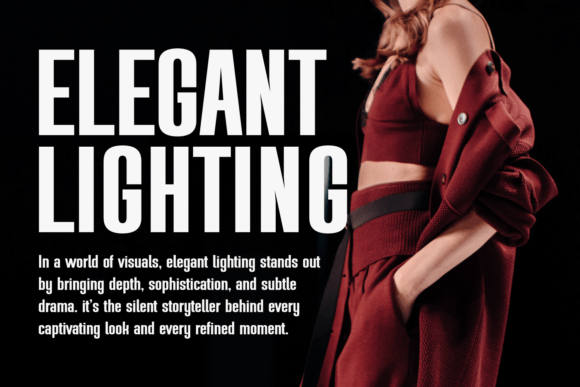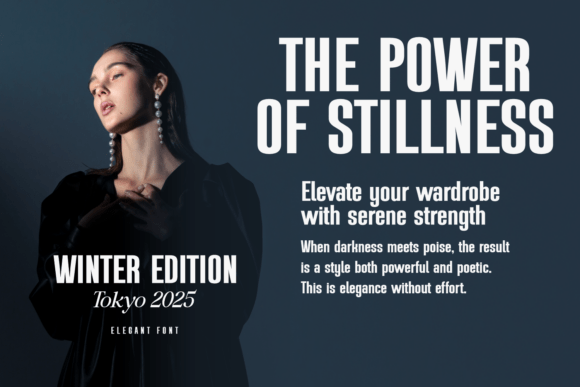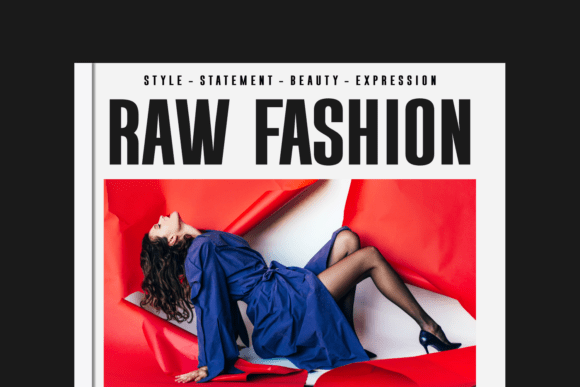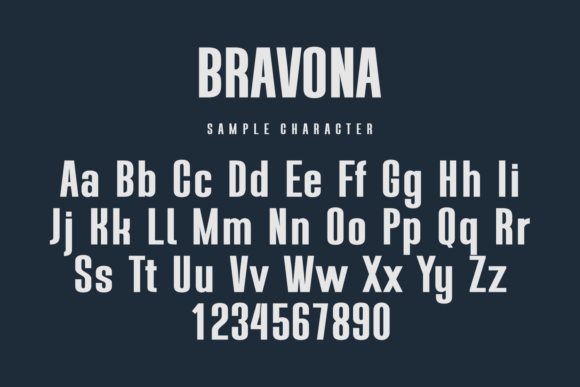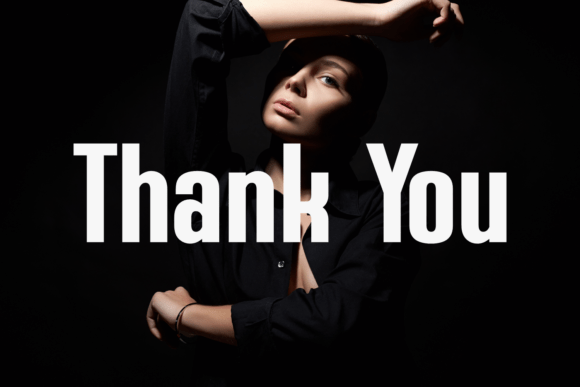
Unlock the Power of Bravona Font: Elevate Your Design with Style
Imagine you’re flipping through a high-end fashion magazine, and a bold headline catches your eye. The words leap off the page, drawing you in with their clean lines, sharp contrast, and unmistakable style. This is the magic of Bravona Font, a modern Sans Serif typeface that’s tailor-made for making a statement.
As a designer, you know that the right font can be the difference between a design that’s merely good and one that’s truly great. Bravona Font is that secret ingredient that can elevate your work from bland to grand. Its strong, high-contrast design makes it perfect for headlines, titles, and any situation where you need to grab attention. Whether you’re working on a fashion campaign, a magazine cover, or a brand identity, Bravona Font is the perfect tool to help you leave a lasting impression.
Bravona Font Key Features
- Font Family: Bravona Font comes in 2 font families: Bravona and Bravona Sans, with 8 styles each.
- Size: Bravona Font has a large character set, with over 700 glyphs, including international characters and symbols.
- Unique Characteristics: Bravona Font features a unique blend of modern and vintage elements, with a distinctive flair for drama and elegance.
- Language Support: Bravona Font supports a wide range of languages, including Latin, Cyrillic, Greek, and many more.
Bravona Font Review
Bravona Font is an interesting take on modern sans-serif fonts. I’ll dive into what works well and where it falls short.
- Unique and modern aesthetic: Bravona Font has a distinct look that sets it apart from other sans-serif fonts.
- Legible in various sizes: I was impressed by how clear the font remains even at smaller sizes.
- Wide language support: Bravona Font supports a wide range of languages, making it a great option for multilingual projects.
- Lack of subtlety: Bravona Font’s unique aesthetic may be too bold for some projects, making it difficult to balance with other design elements.
- Not ideal for body text: While Bravona Font is great for headings and titles, it may not be the best choice for large blocks of body text due to its condensed letterforms.
- Not as versatile as other fonts: Bravona Font’s unique style may limit its use in certain design contexts, such as formal or traditional projects.
Overall, Bravona Font is a solid choice for projects that require a modern and unique aesthetic. However, it’s essential to consider its limitations and balance it with other design elements to achieve the desired effect.
For best results, use the Bravona Font in headings and titles, as it is designed to be bold and eye-catching.
The Bravona Font is ideal for:
1. Headings and titles in designs and presentations.
2. Adding a professional touch to graphics and documents.
3. Creating eye-catching marketing materials.
Alternatives to Bravona Font
Montserrat is a popular sans-serif font that is highly legible and versatile. It is ideal for use in headings and titles, and is particularly well-suited for digital applications. Montserrat has a slightly more geometric feel than Bravona Font, with a stronger emphasis on clean lines and simplicity.
Lato is a modern sans-serif font that is designed to be highly readable and adaptable. It is a good choice for use in body text, as well as in headings and titles. Lato has a slightly more rounded feel than Bravona Font, with a softer and more approachable aesthetic.
Open Sans is a highly legible and versatile sans-serif font that is designed for use in digital applications. It is a good choice for use in body text, as well as in headings and titles. Open Sans has a slightly more neutral feel than Bravona Font, with a clean and minimalist aesthetic.